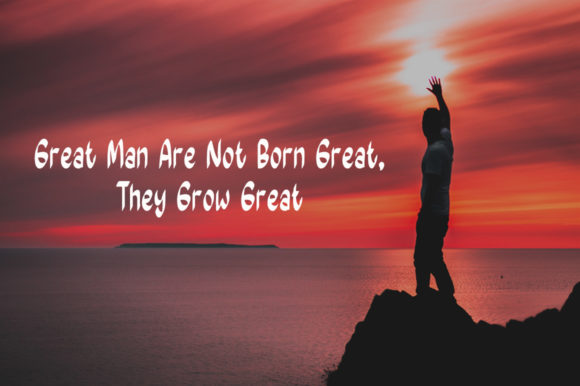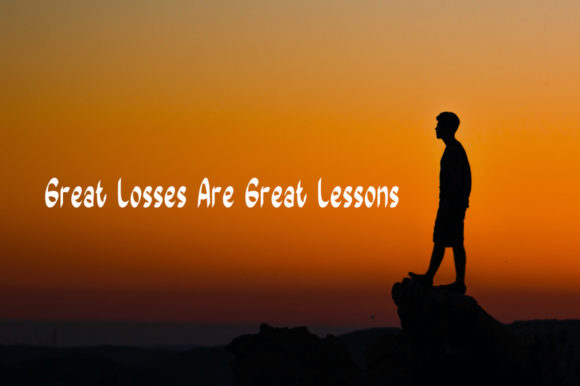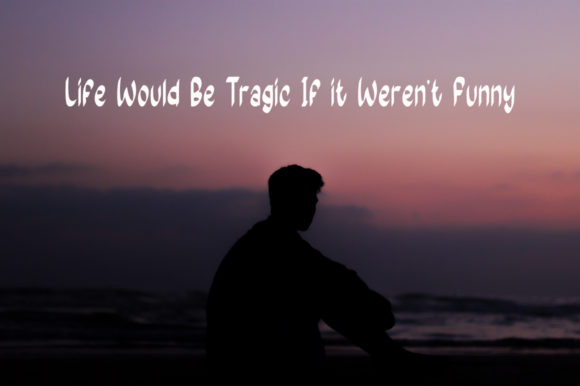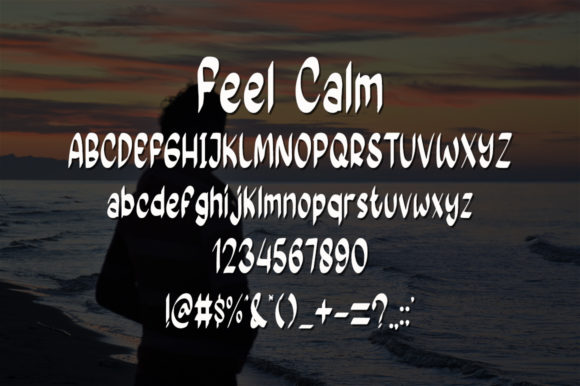
Discover the Soothing Charm of Feel Calm Font: Elevate Your Designs with Ease
In the world of typography, fonts play a crucial role in conveying emotions and setting the tone for any design project. If you’re on the hunt for a font that exudes a sense of serenity and approachability, look no further than the Feel Calm font. This bold handwritten font has been carefully crafted to capture the essence of calmness, making it an excellent addition to any designer’s toolkit.
Handwritten fonts have a unique ability to add a personal touch to any design. They evoke a sense of warmth and friendliness, making them perfect for projects that require a more approachable tone. The Feel Calm font takes this to the next level with its casual charm and down-to-earth feel. Its carefully handcrafted design ensures that each letter is infused with a sense of personality, making it a true standout in the world of typography.
One of the most significant advantages of the Feel Calm font is its incredible versatility. Whether you’re working on a busy background or using it as a standalone headline, this font is sure to shine. Its bold and readable design makes it perfect for a wide range of applications, from branding and advertising to packaging and digital media.
What Makes Feel Calm Font So Special?
- Unique Handcrafted Design: Each letter in the Feel Calm font has been carefully handcrafted to ensure a unique and personalized touch.
- Casual Charm: The font’s casual charm makes it appear wonderfully down-to-earth and approachable.
- Bold and Readable: The Feel Calm font is both bold and readable, making it perfect for use on busy backgrounds or as a standalone headline.
- Incredibly Versatile: This font can be used in a wide range of applications, from branding and advertising to packaging and digital media.
The Feel Calm font is an excellent choice for designers and crafters looking to add a touch of personality to their projects. Whether you’re working on a logo, brochure, or social media graphic, this font is sure to elevate your design and leave a lasting impression.
Tips for Using Feel Calm Font
- Pair with Neutral Backgrounds: Pair the Feel Calm font with neutral backgrounds to make it stand out and showcase its unique charm.
- Experiment with Colors: Don’t be afraid to experiment with different colors to find the perfect combination that complements your design.
- Use for Headlines and Titles: The Feel Calm font is perfect for use in headlines and titles, where its bold and readable design can shine.
In conclusion, the Feel Calm font is an exceptional addition to any designer’s toolkit. Its unique handcrafted design, casual charm, and incredible versatility make it perfect for a wide range of applications. Whether you’re a designer, crafter, or simply someone looking to add a touch of personality to your projects, the Feel Calm font is sure to exceed your expectations.